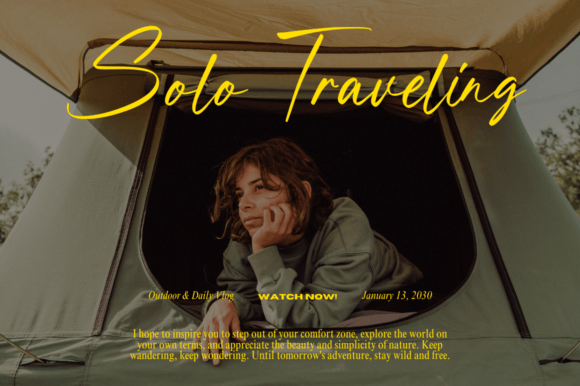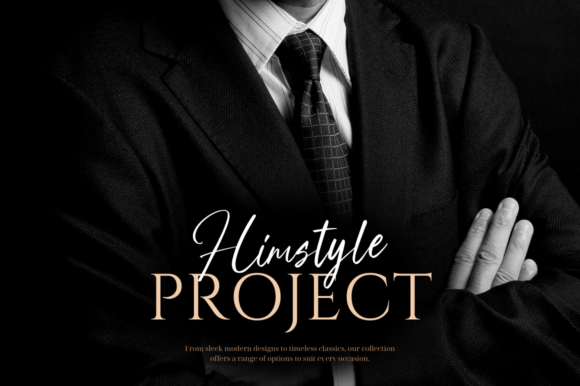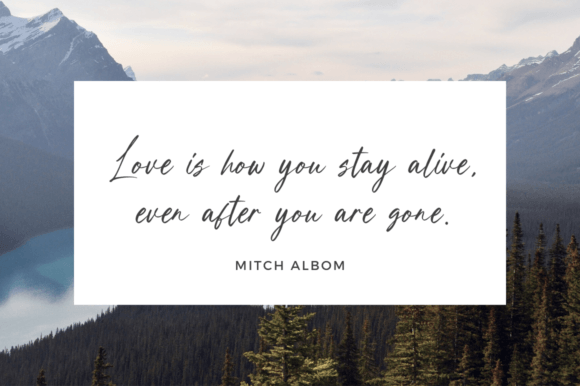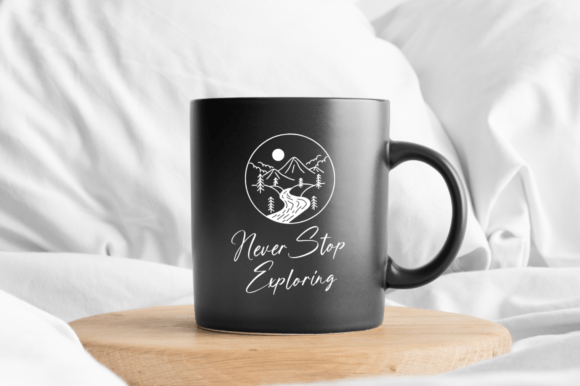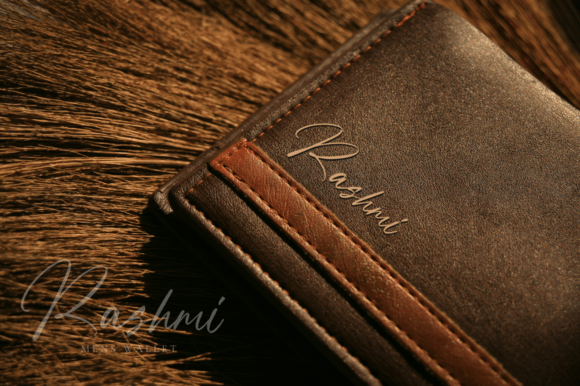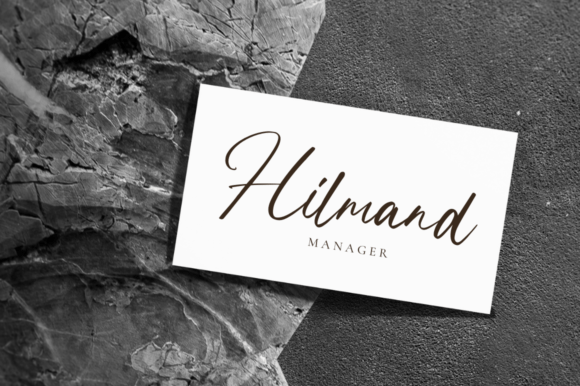
Introduction to Richload Font
Introducing “Richload,” a script signature font that radiates elegance and sophistication.
With its fluid strokes and graceful curves, this font captures the essence of a handwritten signature Perfect for projects that require a personal and luxurious touch, such as logos, branding, or wedding invitations.
Richload Font offers exceptional quality and versatility, making it a valuable addition to your design toolkit. Whether you’re creating for personal projects or commercial use, Richload Font delivers professional results.